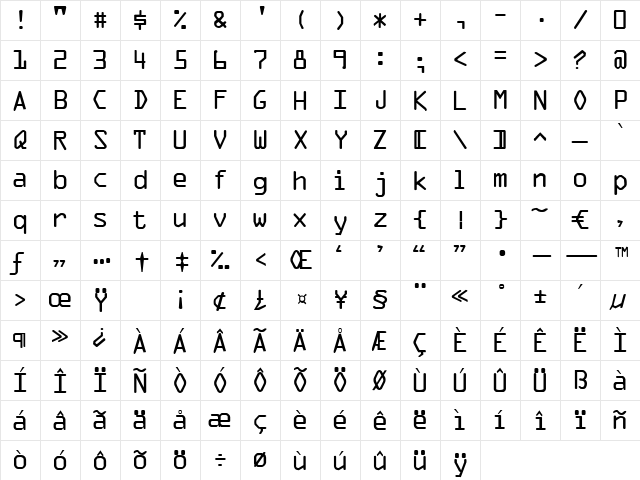
Dolomit Regular
Design Context for Dolomit Typeface
Dolomit is a composed and adaptable typeface that performs quietly and consistently across a wide range of design contexts.